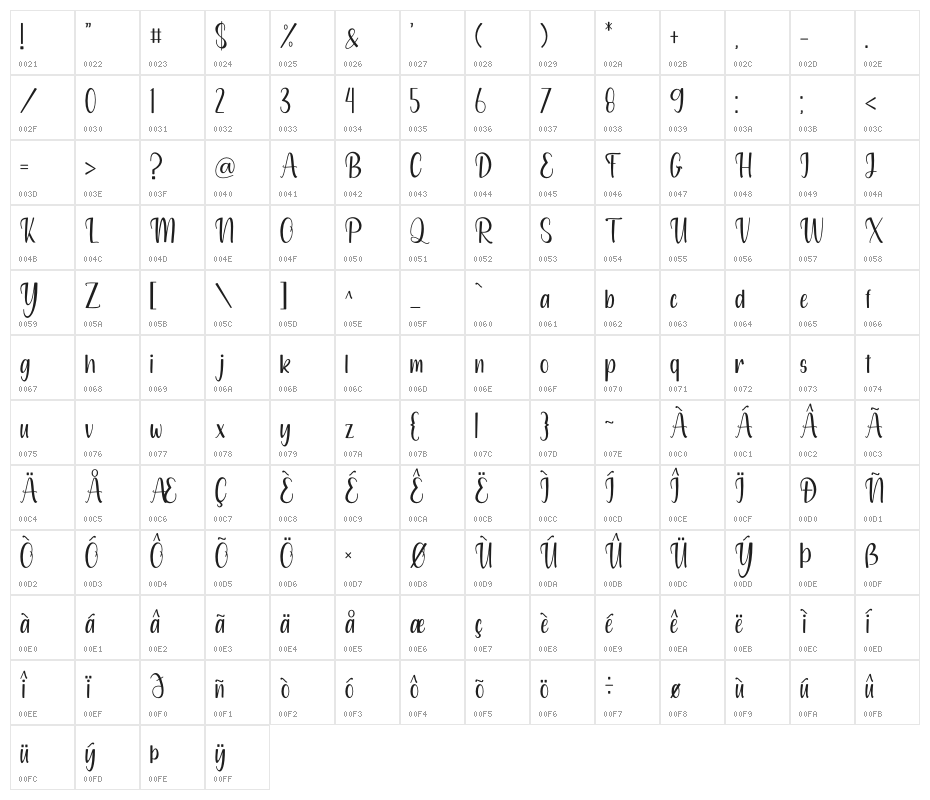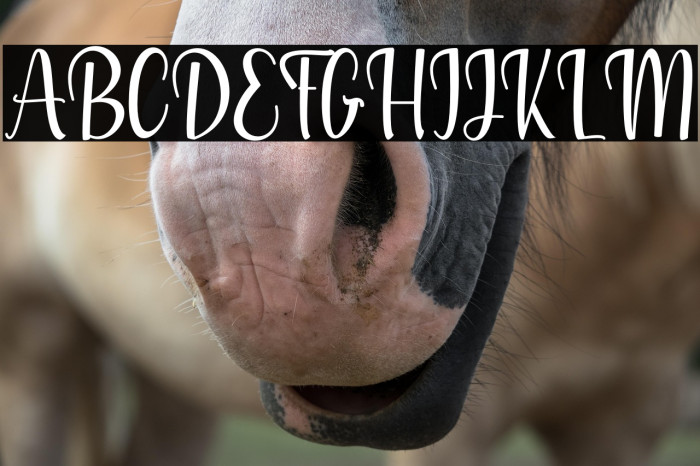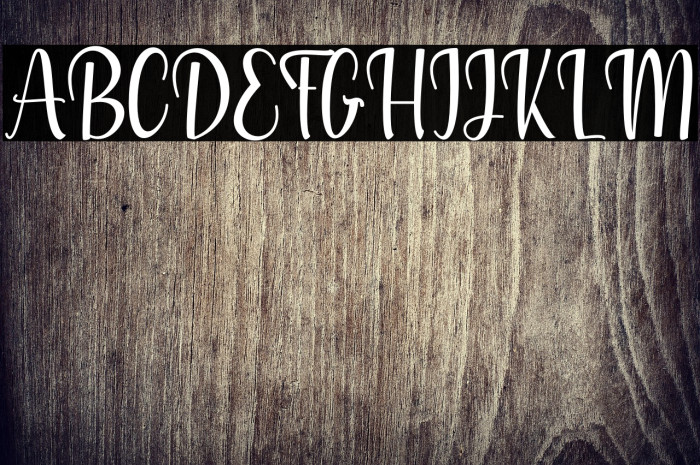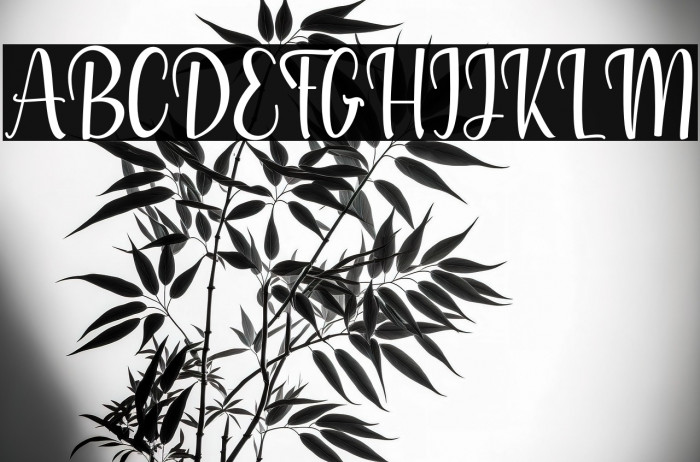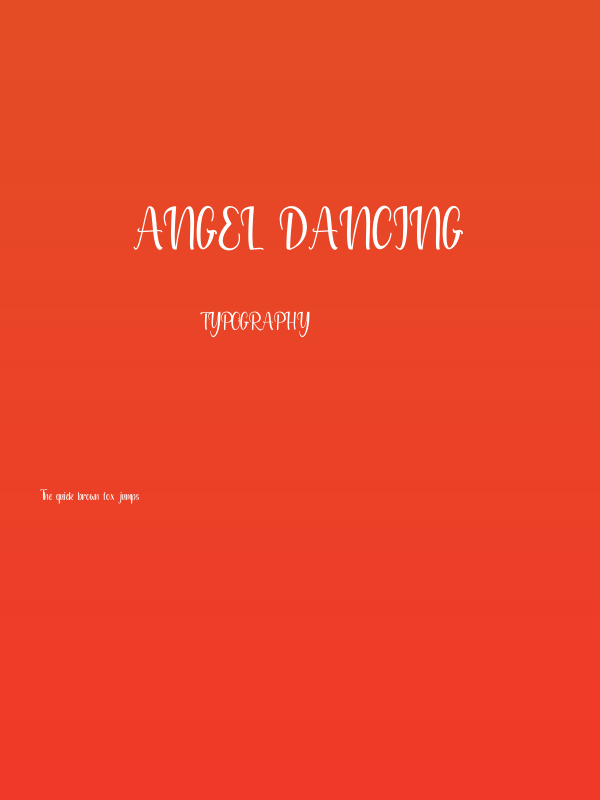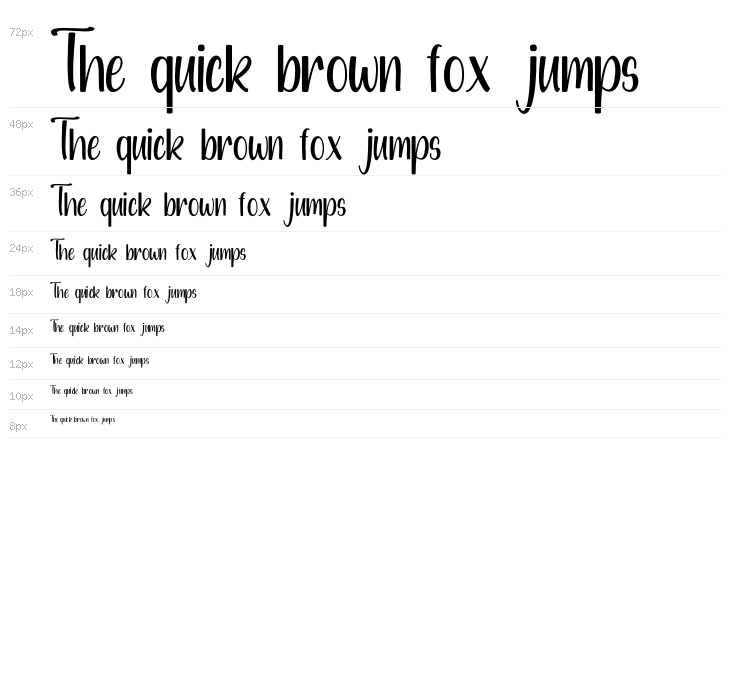
Angel Dancing Font
Angel Dancing Description
This font features a whimsical and flowing script style, characterized by its elegant curves and playful loops. The uppercase letters exhibit a graceful flair, with extended strokes that add a touch of sophistication. The lowercase letters maintain a consistent rhythm, offering a harmonious blend of readability and artistic expression. The numerals are distinct and align well with the overall style, ensuring clarity in numerical representation. Special characters are thoughtfully designed to complement the font's aesthetic, making it versatile for various creative applications. The font's unique charm makes it suitable for projects that require a touch of elegance and creativity.
| Use Case | Logos, Invitations, Decorative Text |
| Proposed Projects | Ideal for wedding invitations, greeting cards, branding, and decorative signage. |